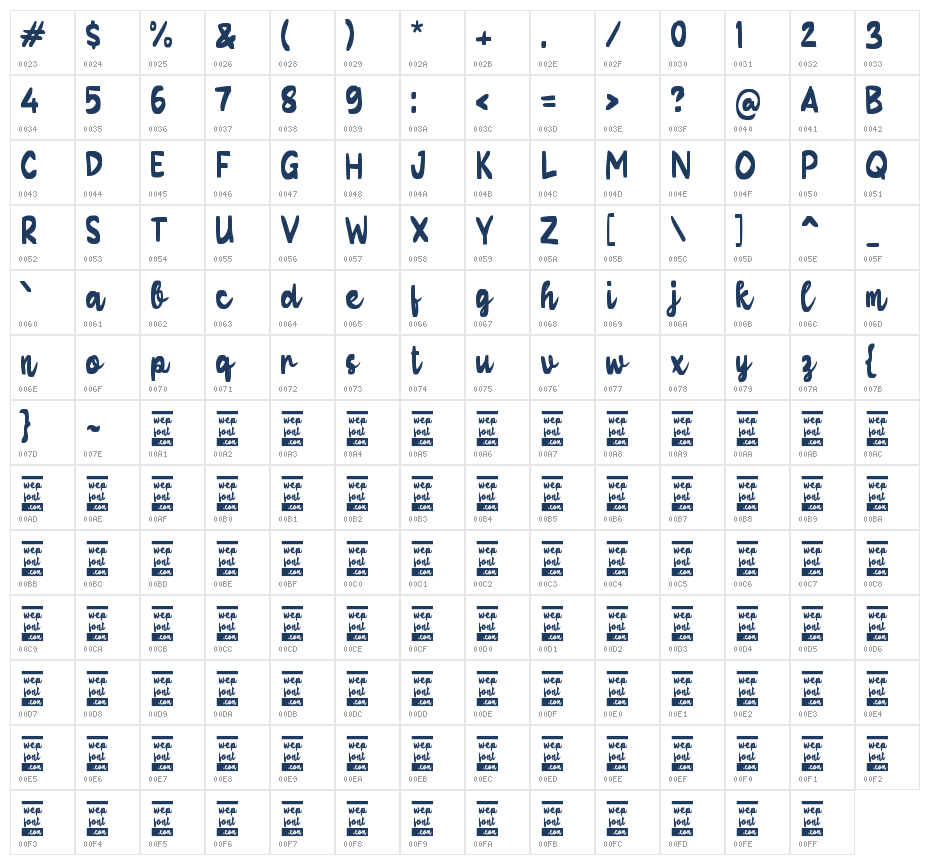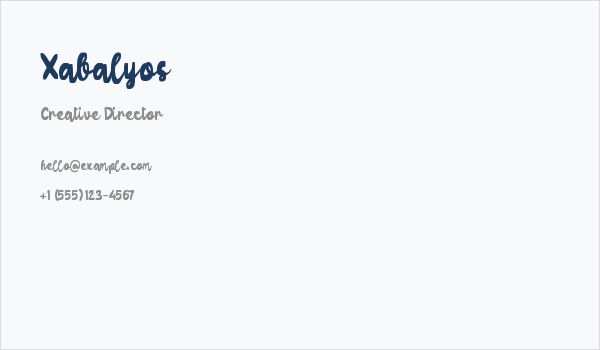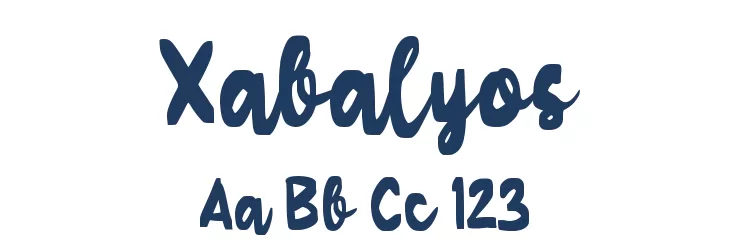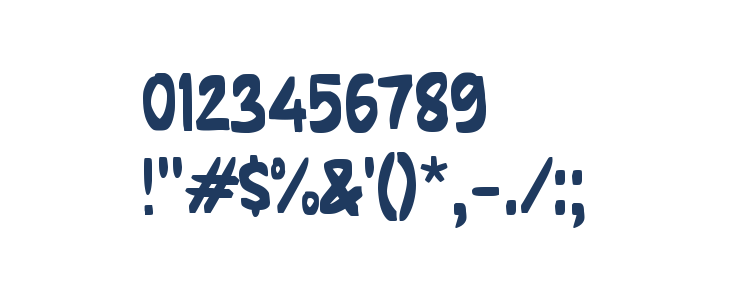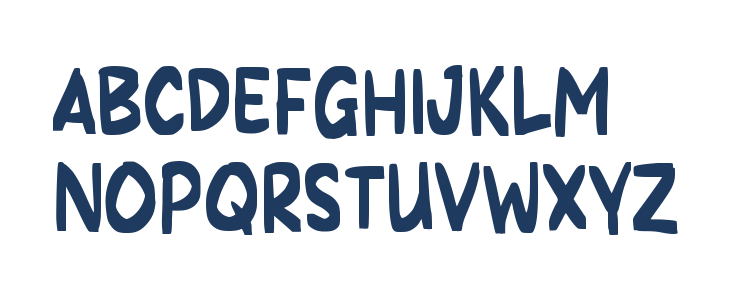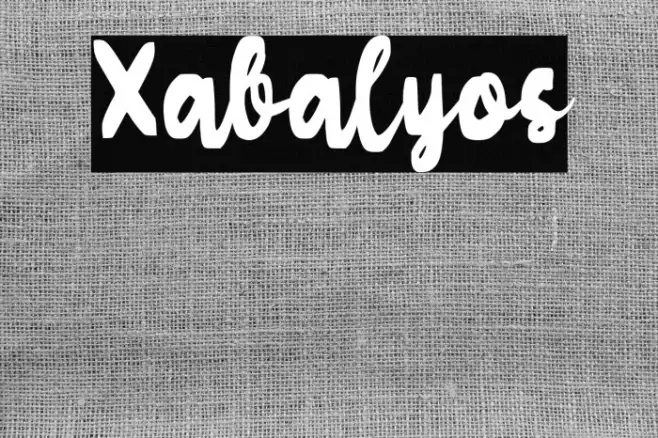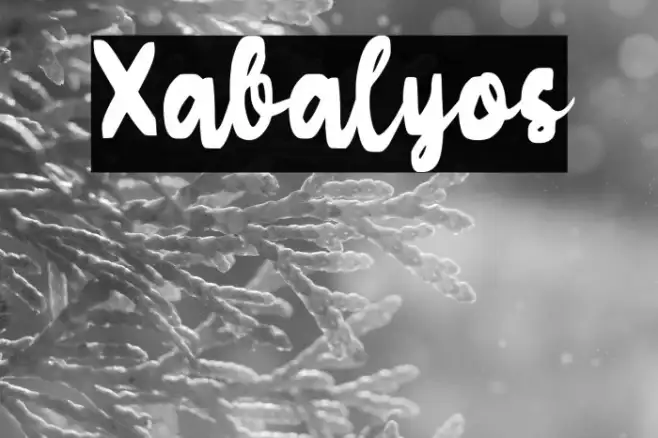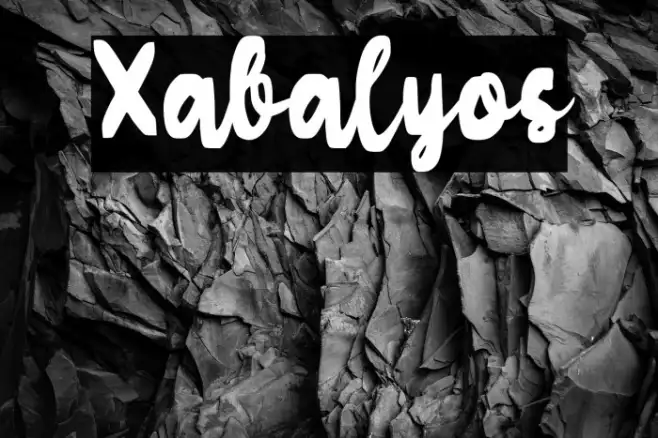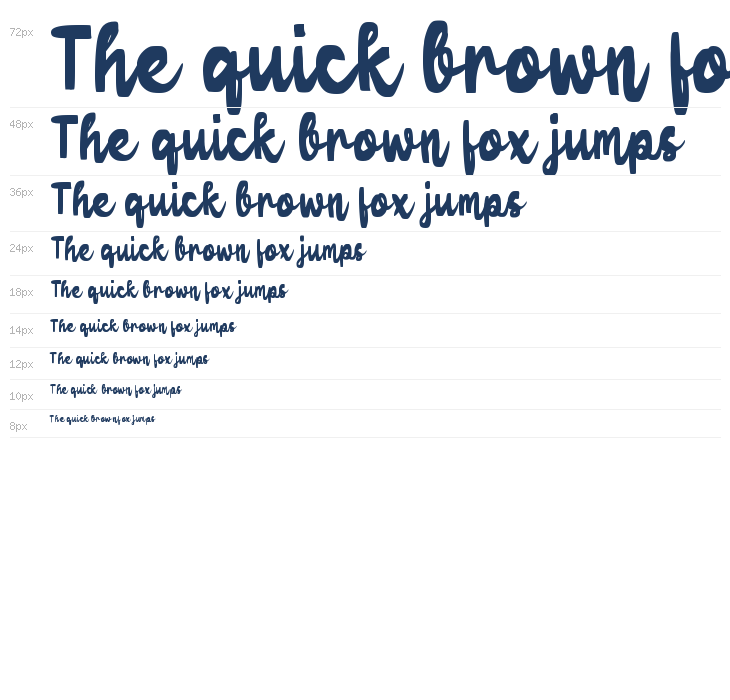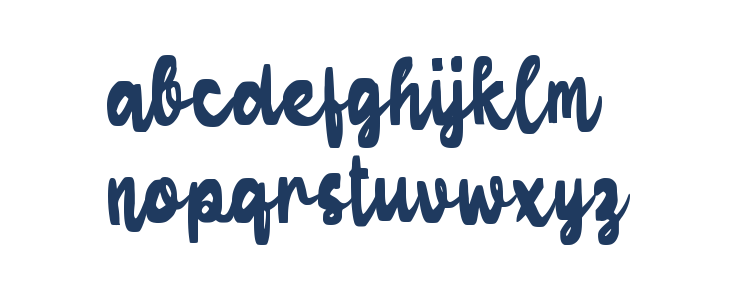
Xabalyos Font
Xabalyos Description
A playful, handwritten style font with bold, rounded characters and a casual, friendly appearance.
XABALYOS UPPERCASE
XABALYOS LOWERCASE
XABALYOS OTHER CHARS
| Overall Style | Casual, Playful, Friendly |
| Use Case | Headlines, Posters, Children's materials, Social media graphics |